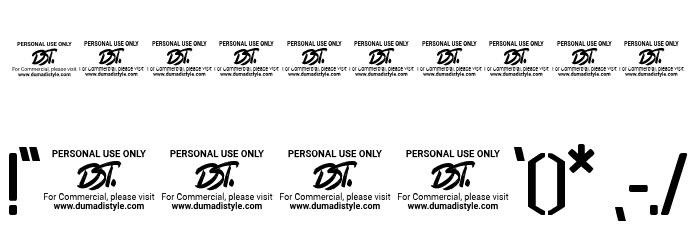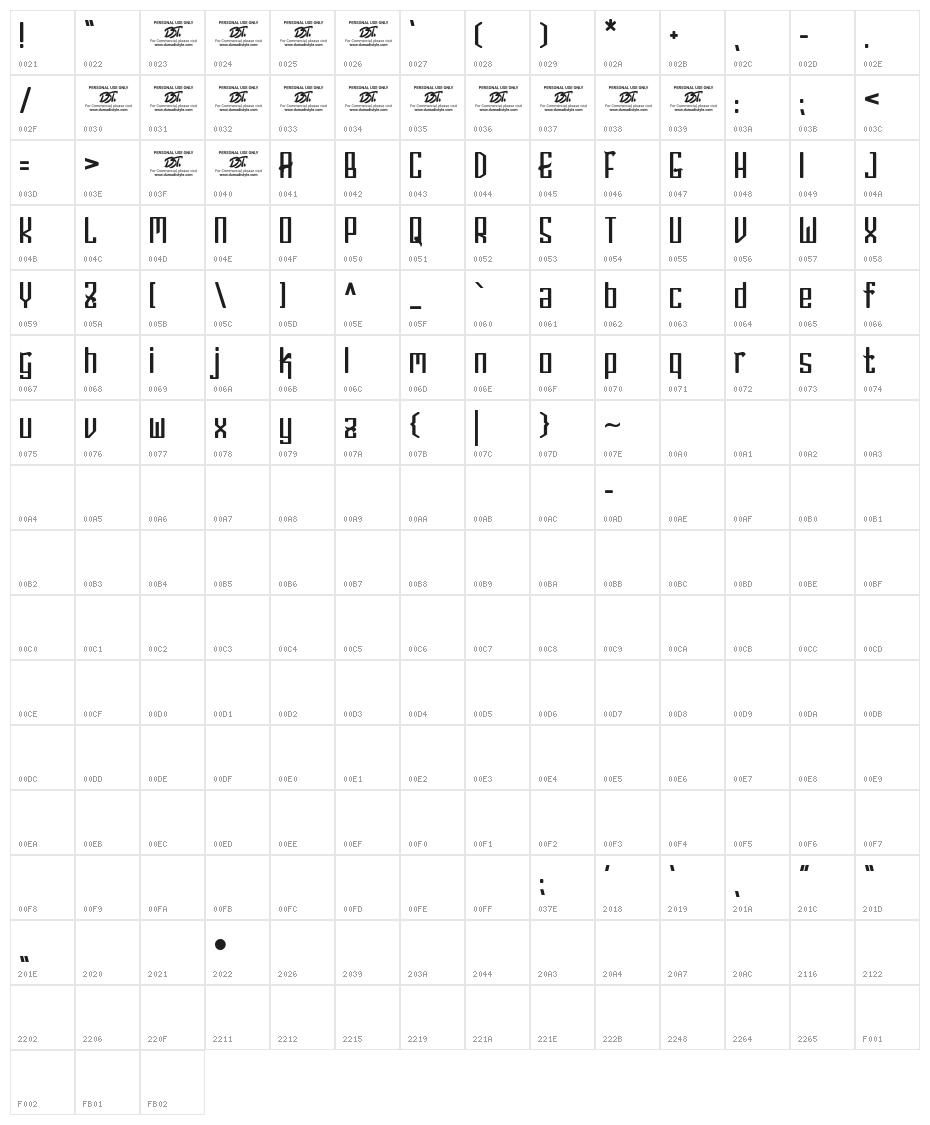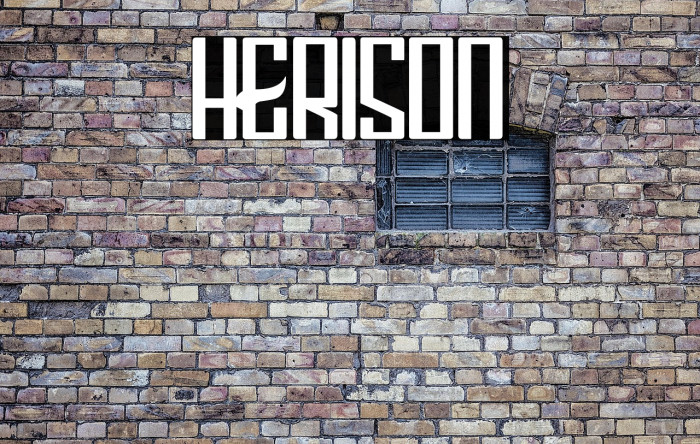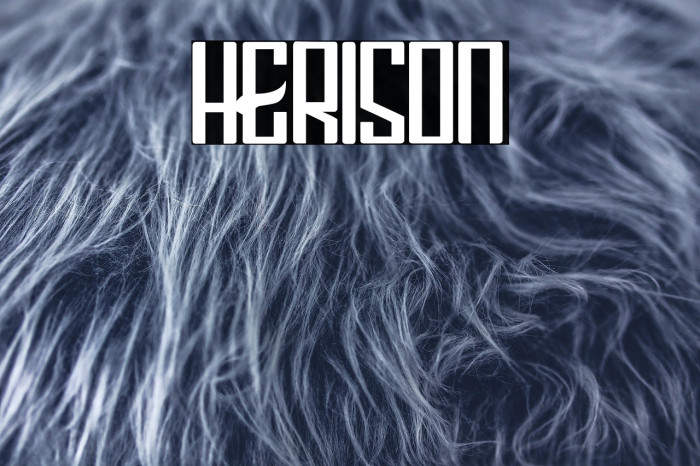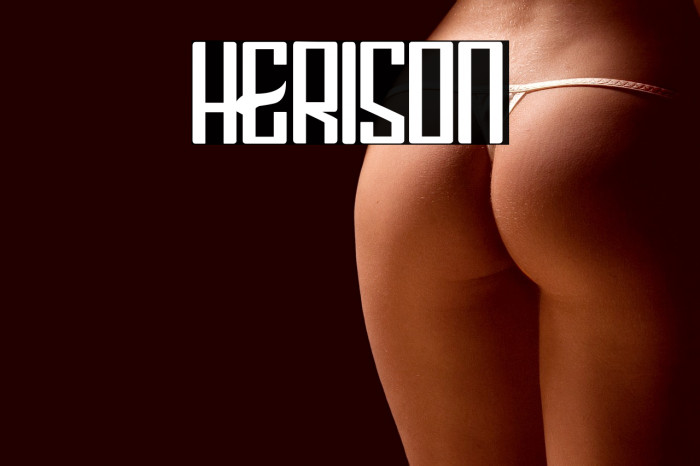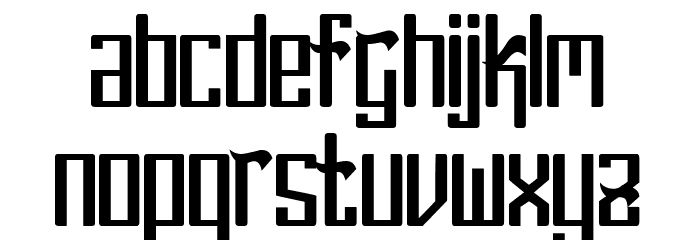
HERISON Font
HERISON Description
This font features a bold and angular design with a futuristic and geometric aesthetic. The characters are constructed with sharp edges and straight lines, giving it a distinct and modern appearance. The uppercase letters are particularly striking, with a uniform height and width that create a cohesive look. The lowercase letters maintain the same angular style, ensuring consistency across the typeface. The numbers and special characters are designed to match the overall style, making this font suitable for a variety of applications. Its unique design makes it stand out, while still being legible and functional.
| Proposed Projects | Ideal for branding, posters, video game graphics, and sci-fi themed projects. |